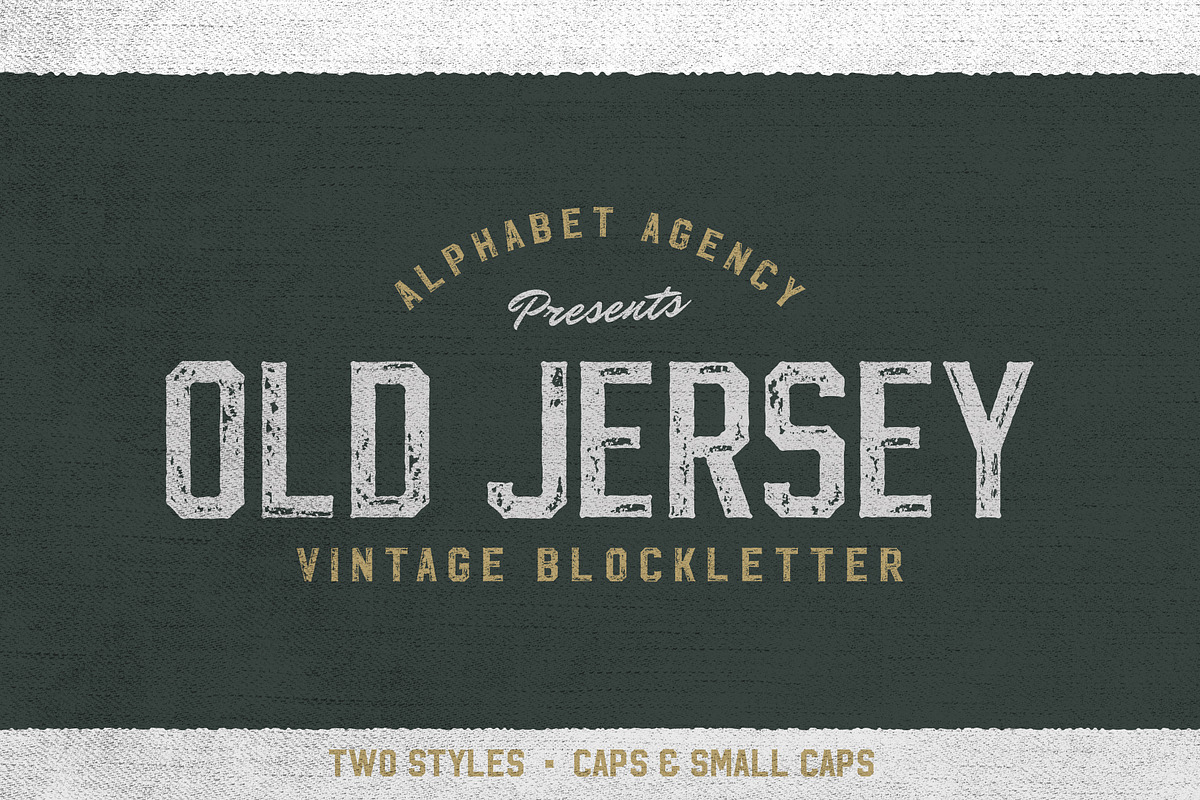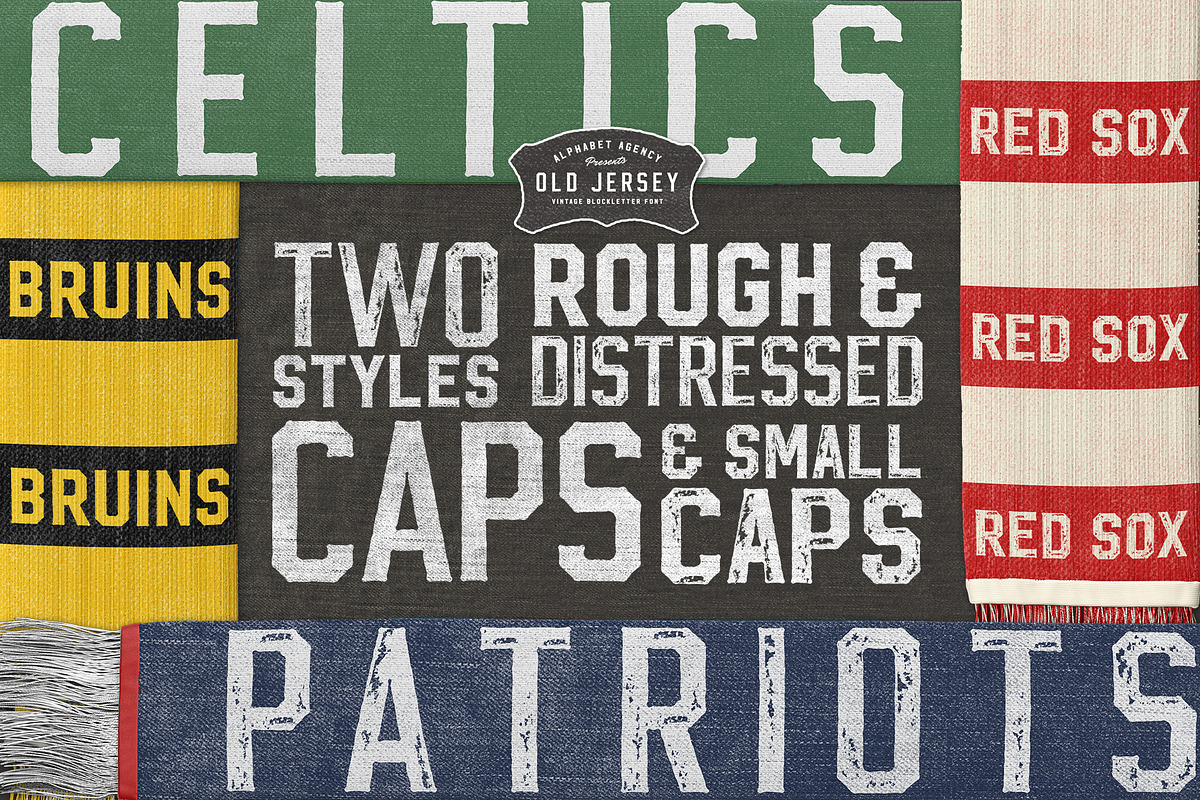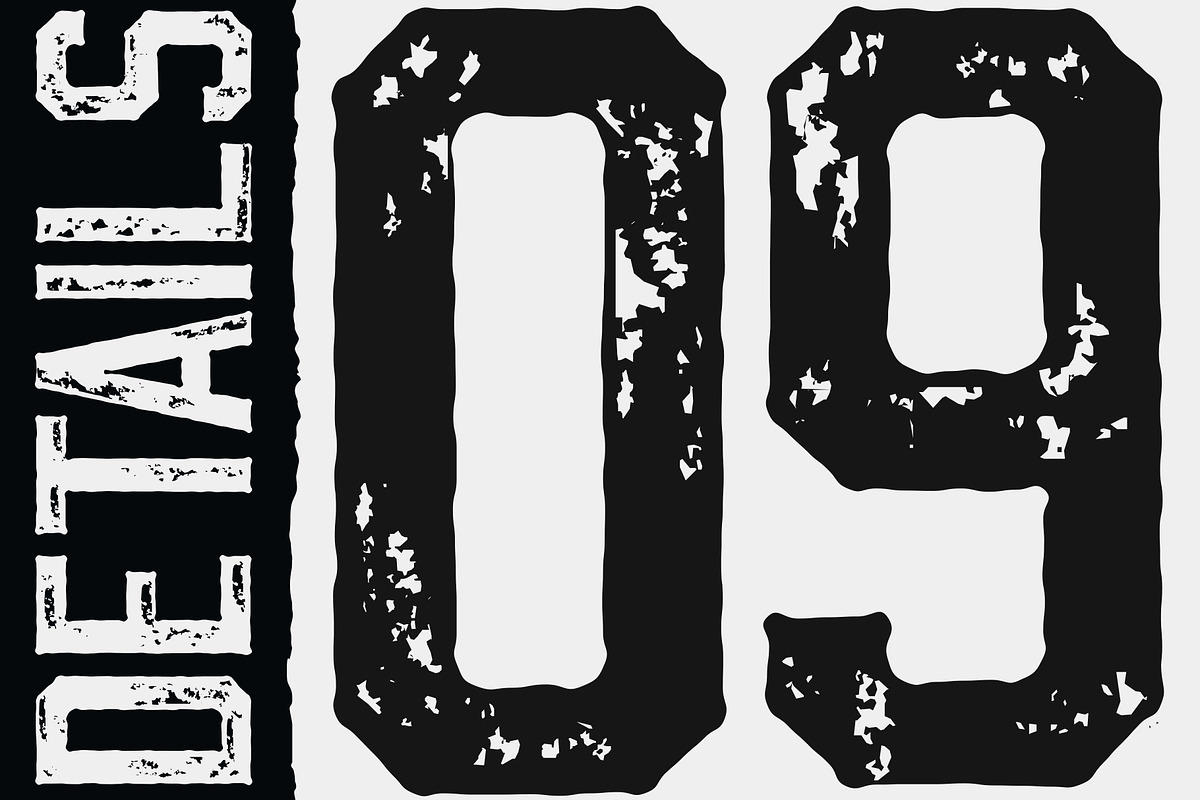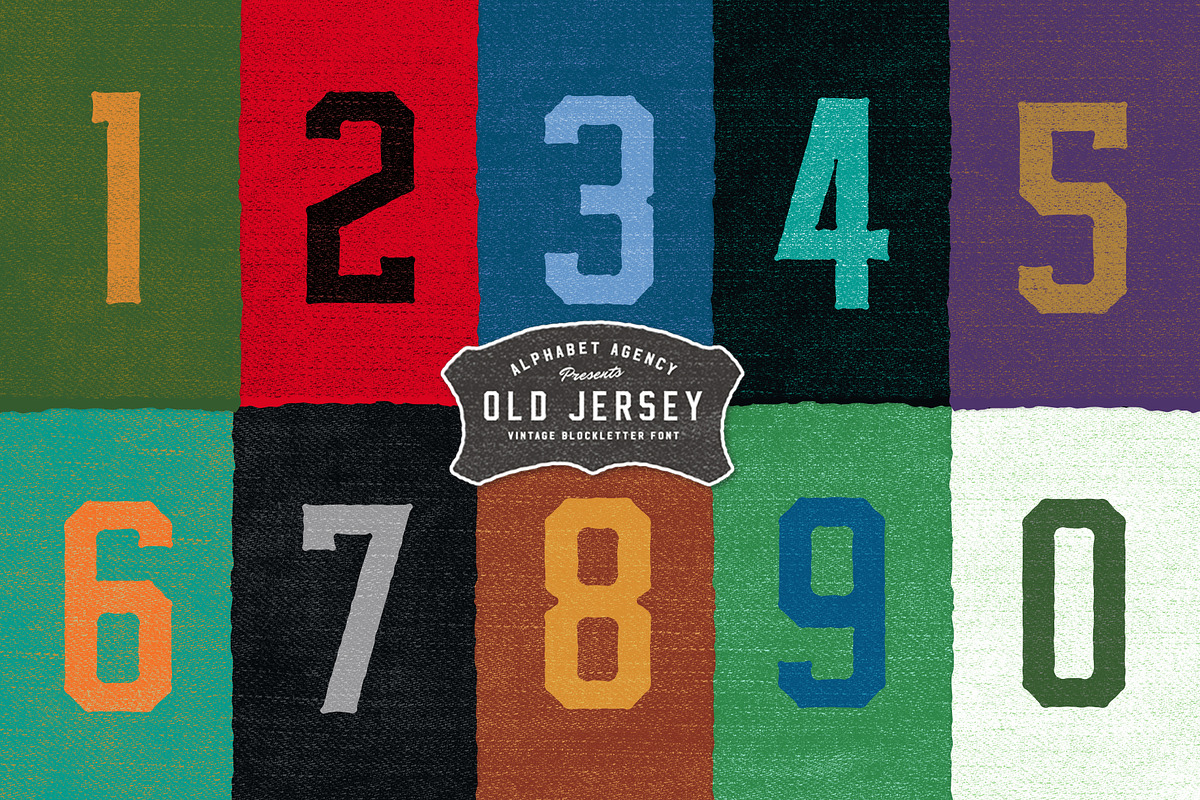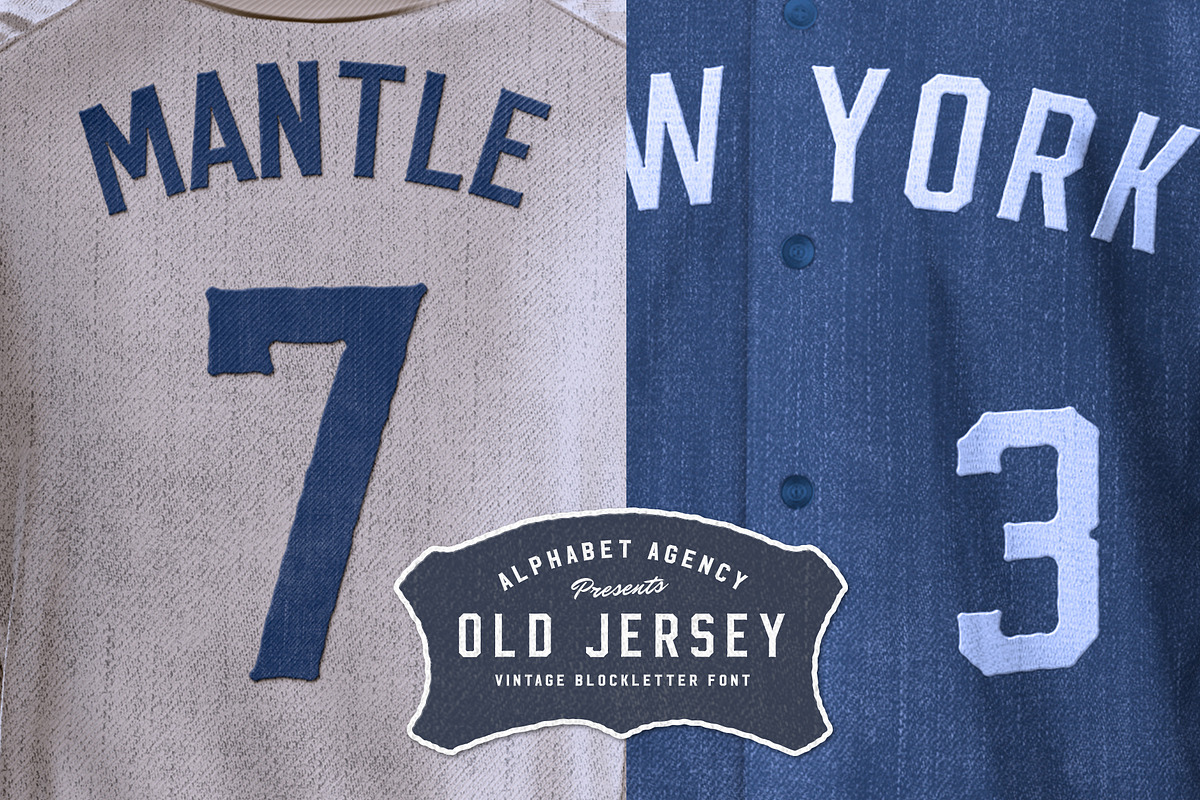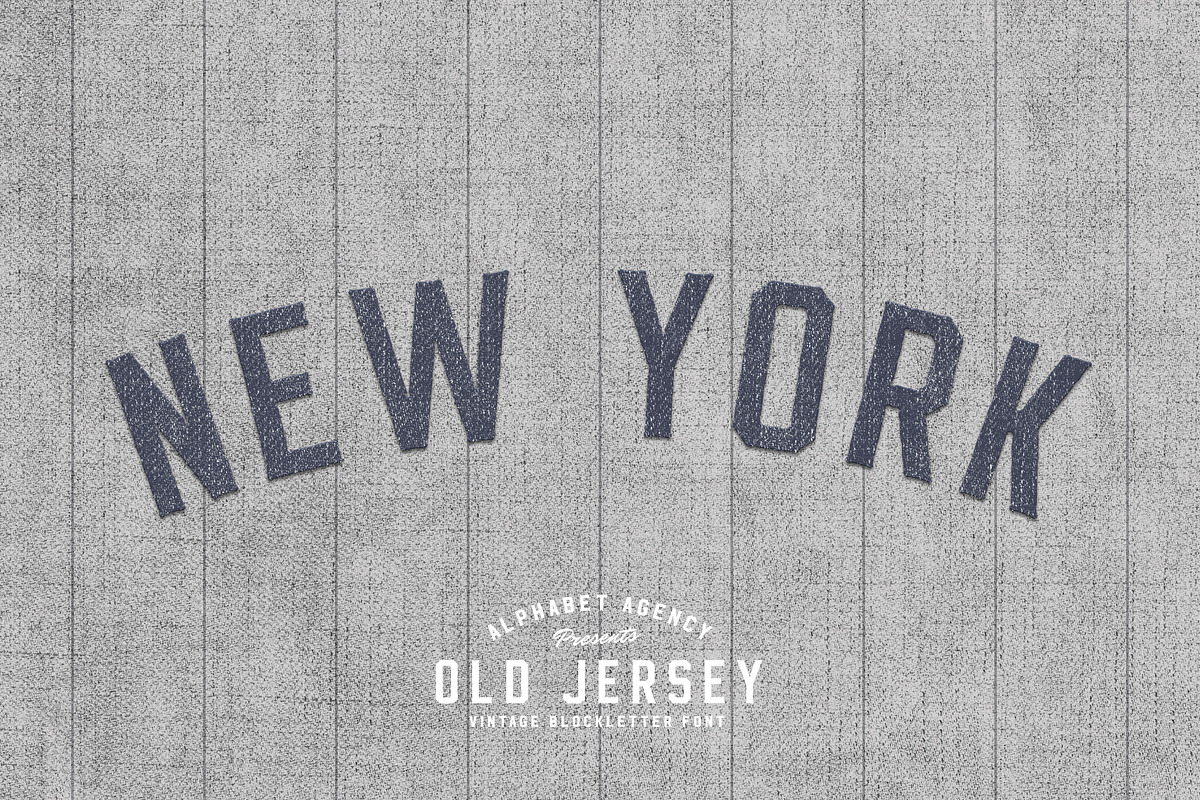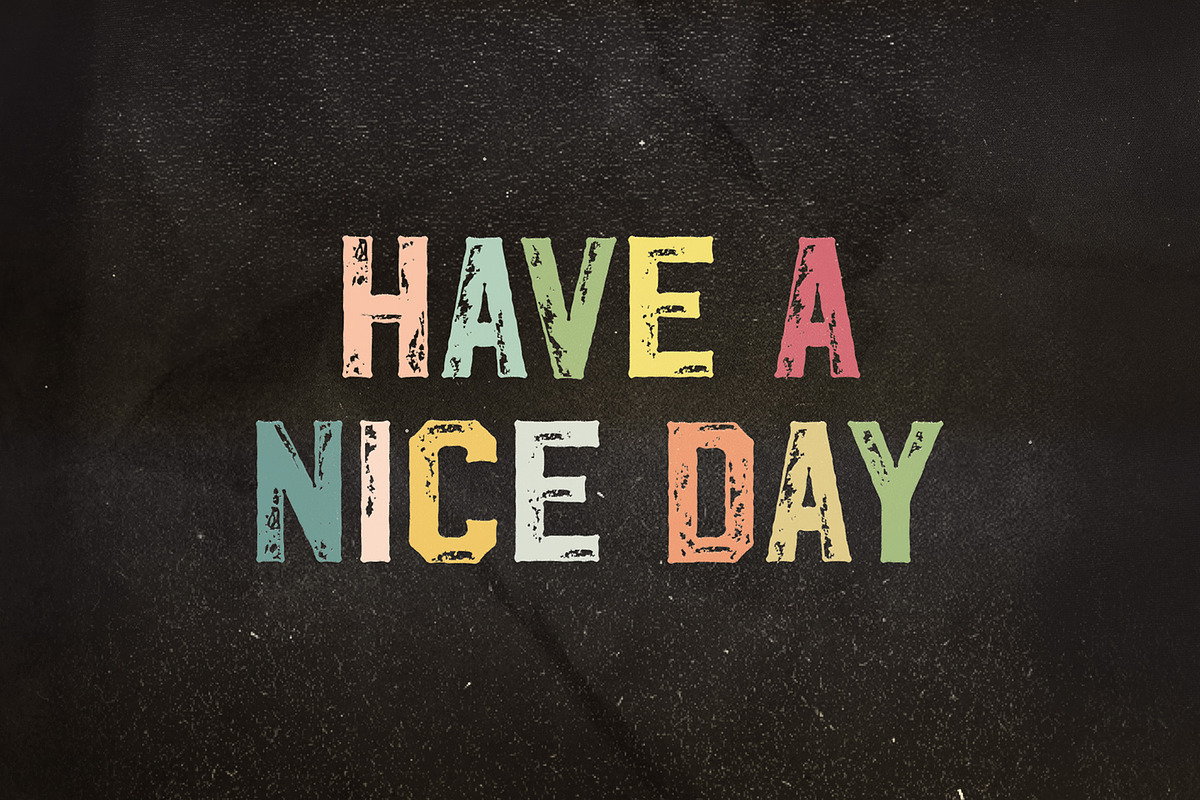
OLD JERSEY FONT DUO
Alphabet Agency presents Old Jersey and Old Jersey Distressed fonts. This font duo provides an amazing vintage look in a bold block letter style.
Each font includes capital letters and small capital letters, numbers, punctuation and international Latin letters.